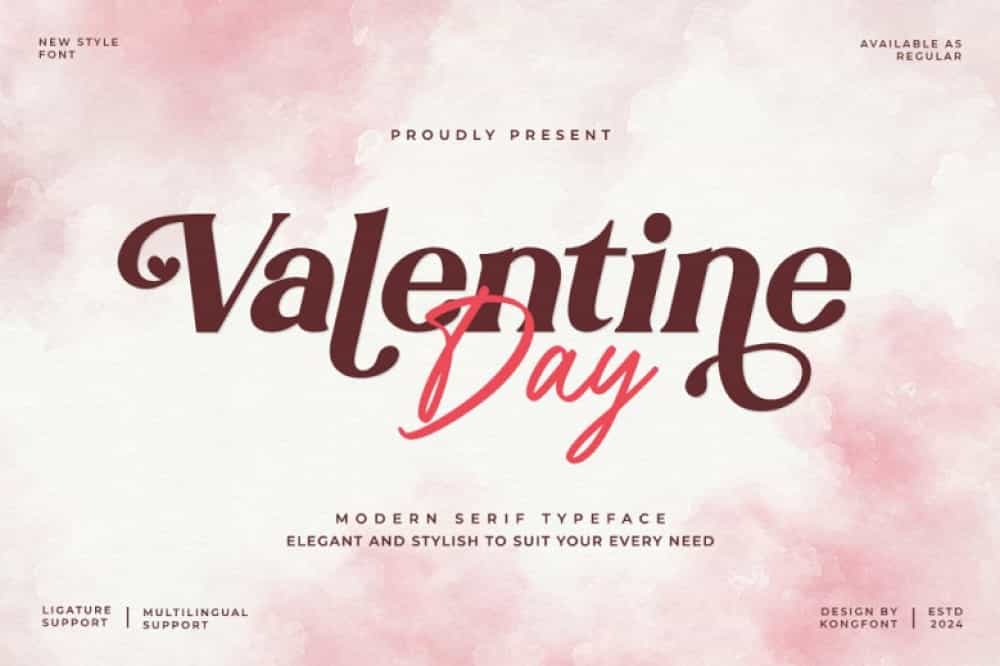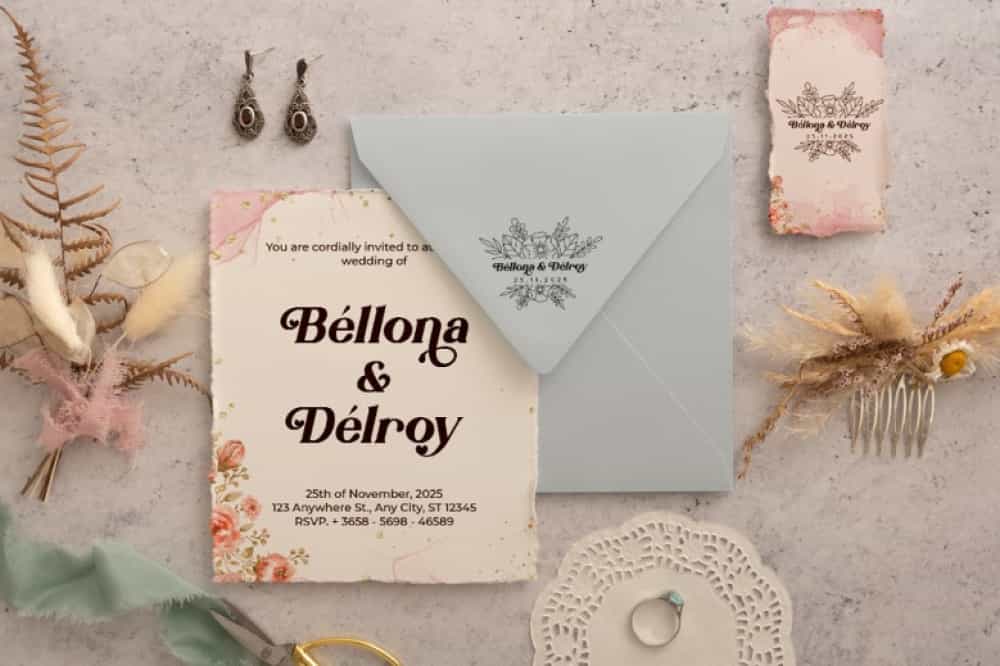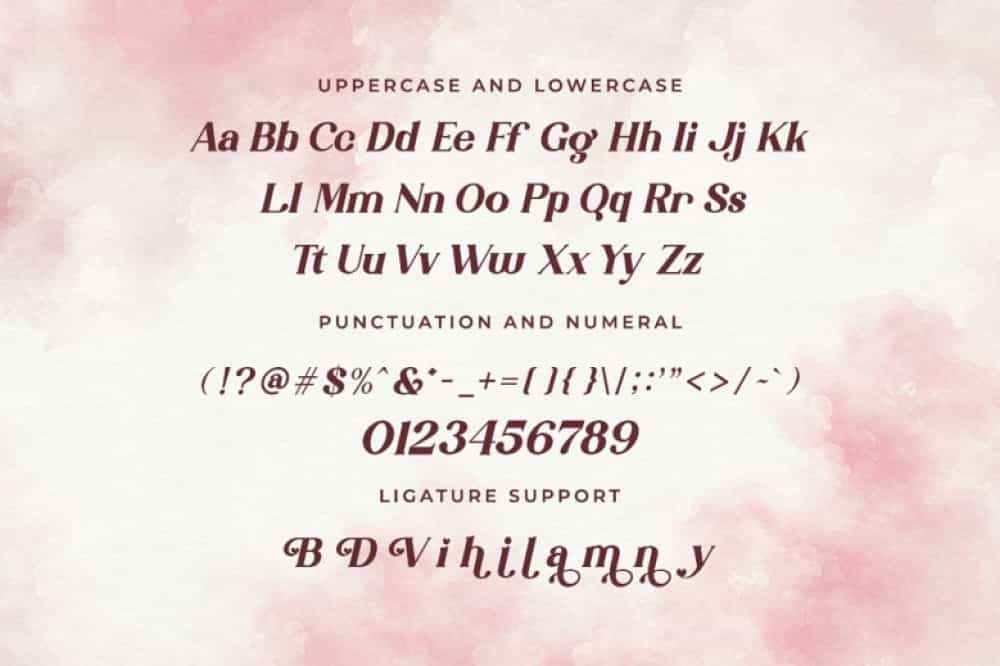
Valentine Day is a modern serif font with elegant look. This font is simple yet stylish and it had a certain feel of romance that is quite appealing. This font has a lot of pretty flowing lines and shapes incorporated into it. In comparison to the other font types, the Serif typefaces are rather specialized.